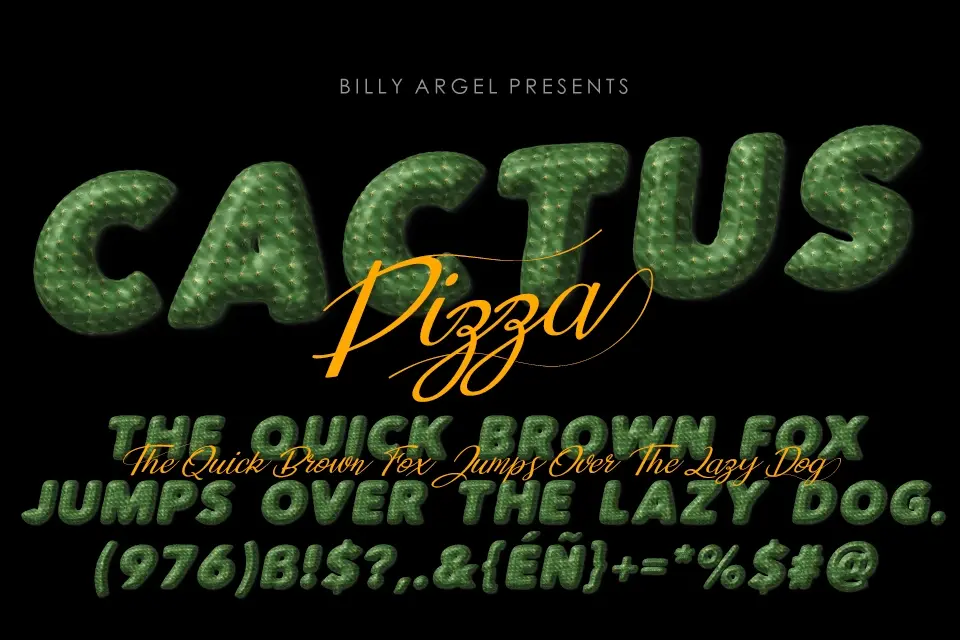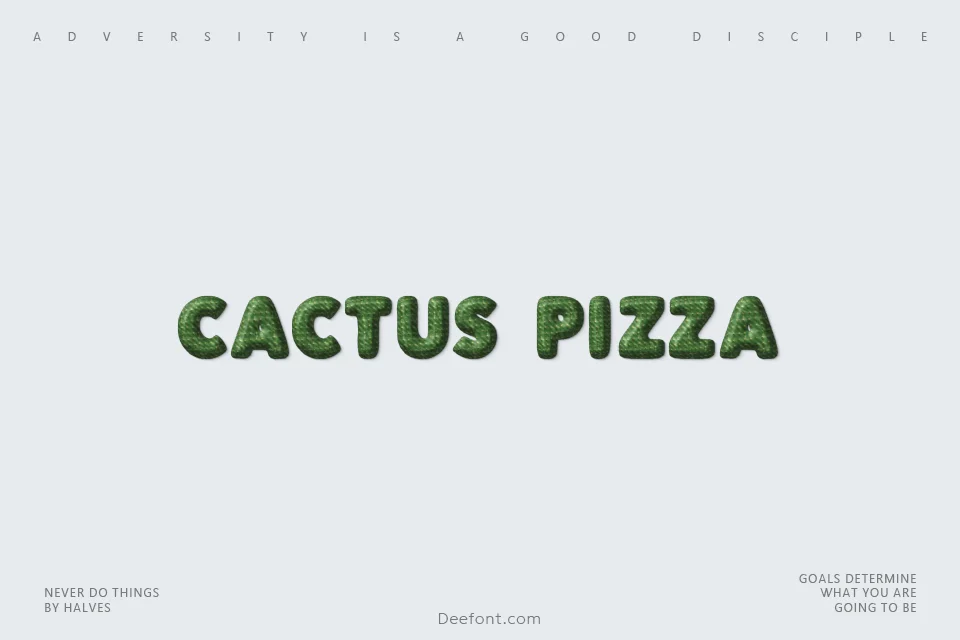
Cactus Pizza Font
Cactus Pizza is a vintage-inspired cartoon display font designed by Billy Argel with a bold, playful aesthetic featuring hand-drawn and textured letterforms. Each character delivers a dynamic appeal with artistic flair and casual tone, making it an excellent choice for fun-oriented creative projects. The typeface includes three styles: bold, bold italic, and script with PUA encoding featuring swashes, stylistic alternates, and ligatures. Its whimsical character and energetic vibe make it ideal for food industry branding, packaging, album covers, social media graphics, and design projects requiring a lighthearted, attention-grabbing presence. The font is characterized by bold appearance and distinctive decorative accents with a unique retro charm suitable for modern branding and advertising applications.